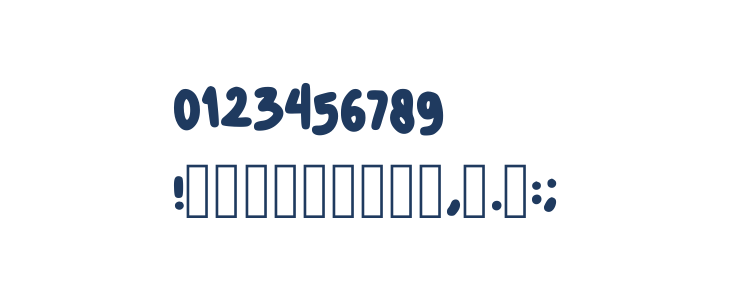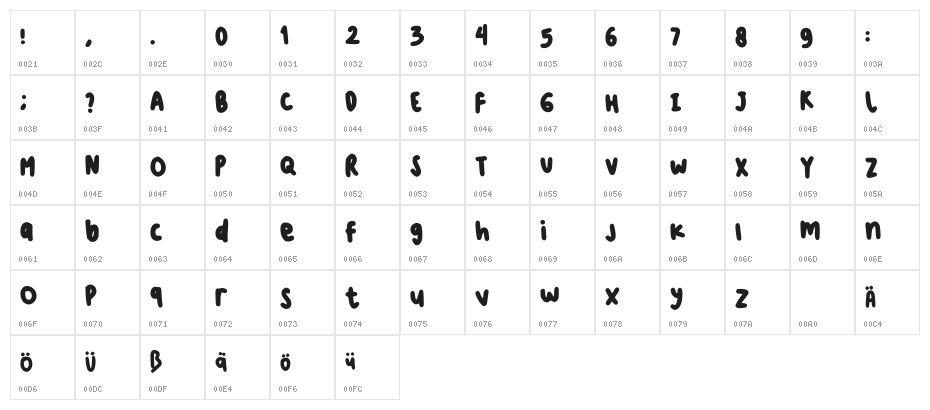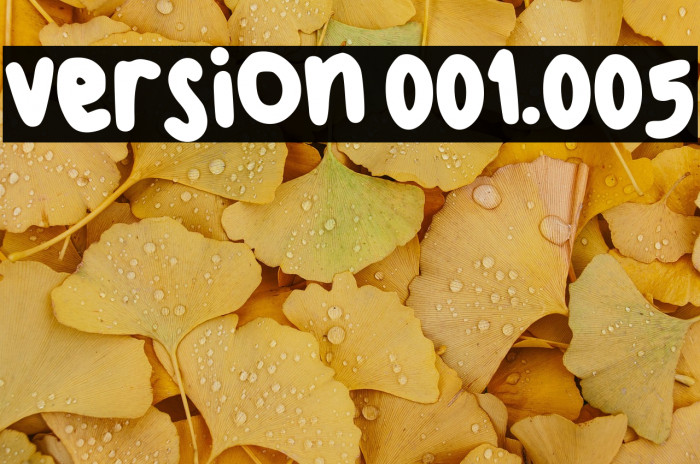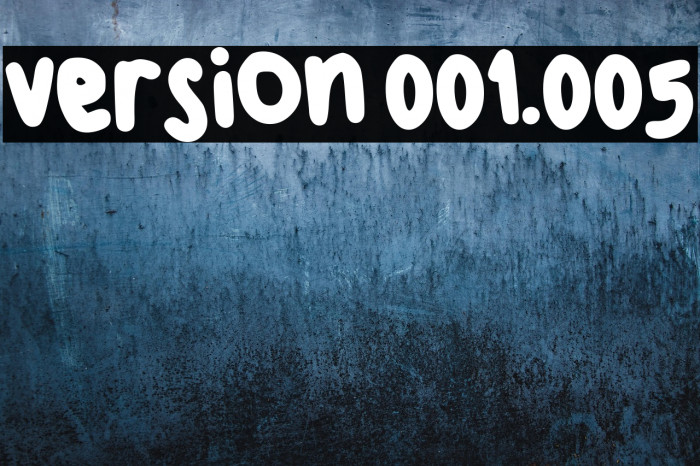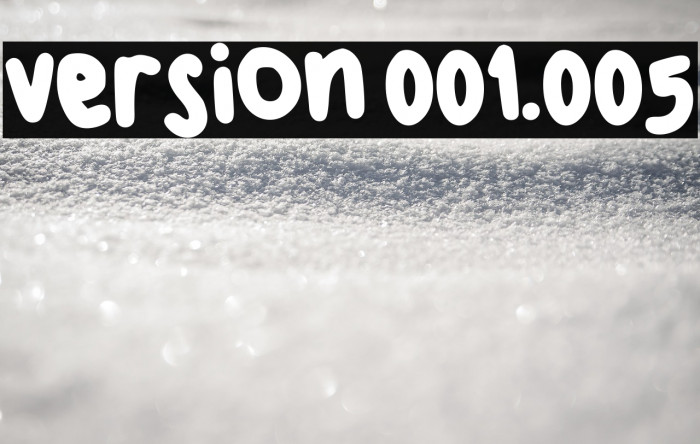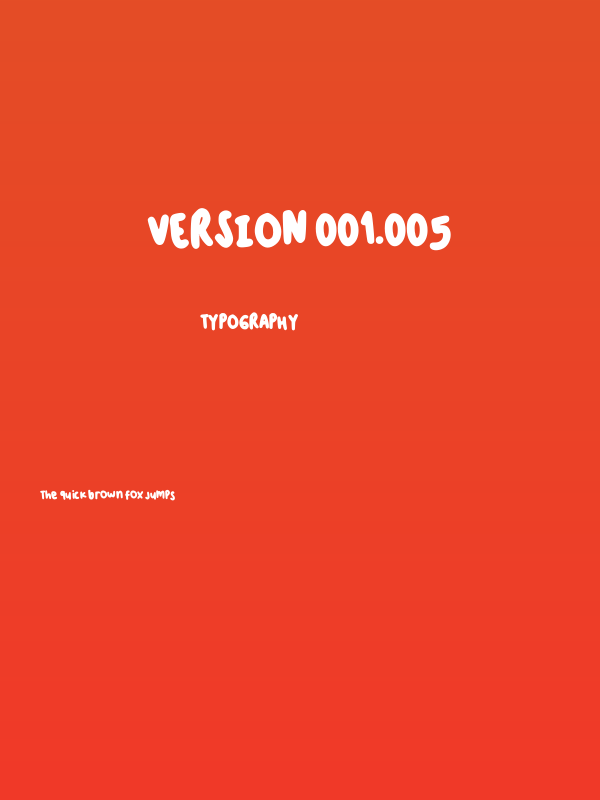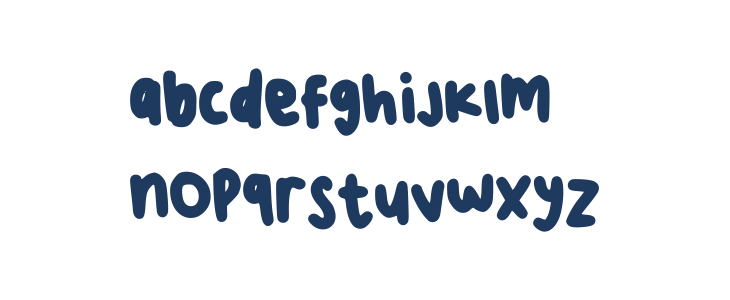
Version 001.005 Font
Version 001.005 Description
This playful and bold font features rounded, thick strokes that give it a friendly and approachable appearance. The characters are slightly irregular, adding a whimsical touch that makes it stand out. The uppercase and lowercase letters maintain a consistent style, with a smooth flow and rounded edges. Numbers and special characters follow the same design principles, ensuring uniformity across all glyphs. This font's informal and lively nature makes it ideal for projects that require a fun and engaging aesthetic.